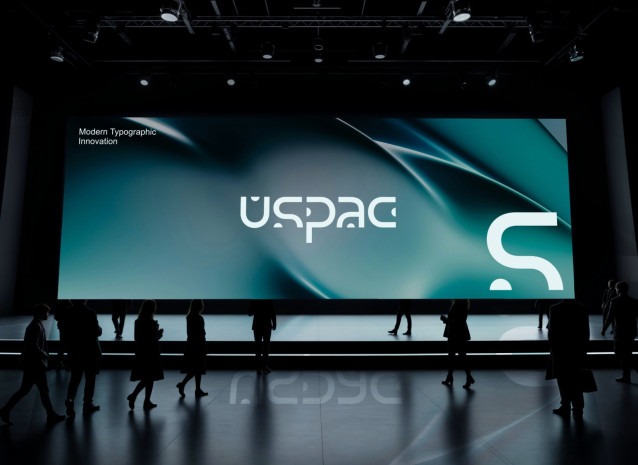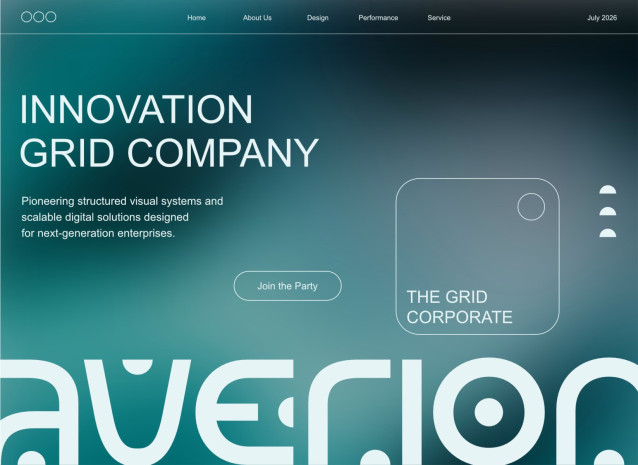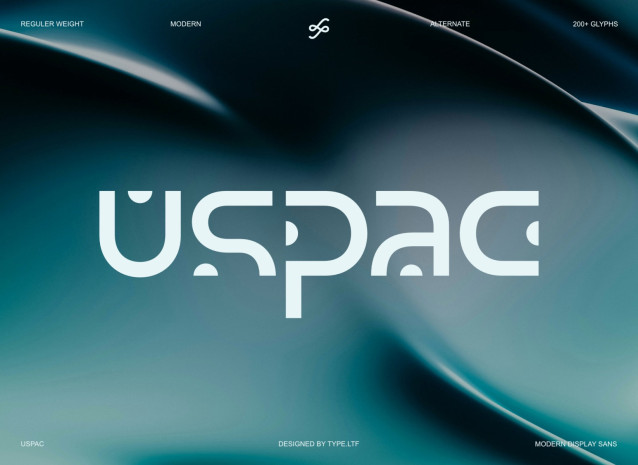
Uspac Modern Display Font
Uspac is a futuristic display font designed for brands that value precision and innovation. It features unique semicircular accents and a versatile character set, delivering a professional, enterprise grade look that works seamlessly across both digital and print media.
Perfect for tech logos, startups, modern industrial identities, posters, packaging, presentations, and premium marketing materials. Its distinctive geometric appearance makes it an excellent choice for futuristic concepts while maintaining strong visual impact and exceptional readability.